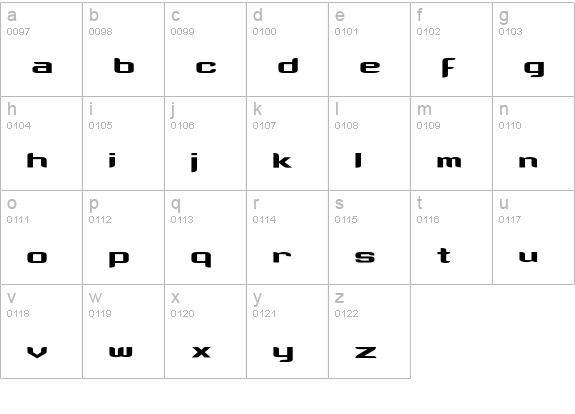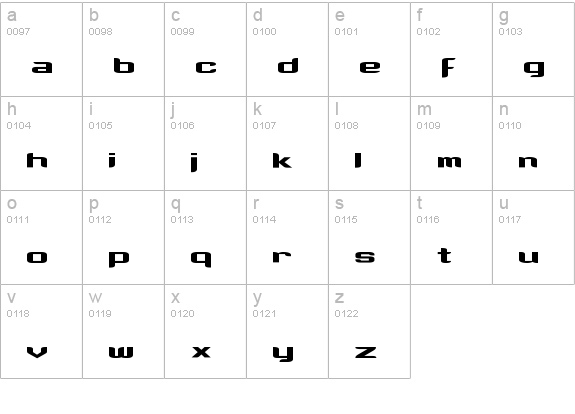
Megahertz-In font is a captivating and modern typeface that exudes sophistication and style. With its sleek lines and bold curves, this font is perfect for making a statement in any design project. Whether you're creating a logo, poster, or website, Megahertz-In font will add a touch of elegance and professionalism. What's even better is that Megahertz-In font is available for free download at FontsMarket.com, making it easily accessible to designers and creatives looking to elevate their work with a high-quality typeface. Don't miss out on the opportunity to enhance your projects with this stunning font that is both versatile and visually striking. Download Megahertz-In font today and take your designs to the next level!